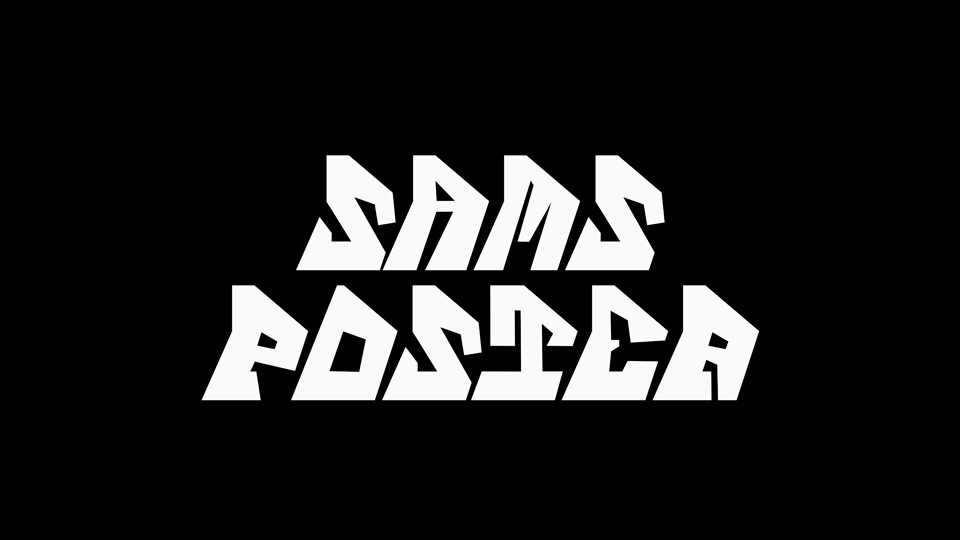
Download Sams Poster font, a sharp, oblique, bold display typeface living on a sloping surface, like any true rebel. Great for posters and impact headlines.
Designer: Sam Nebesařů